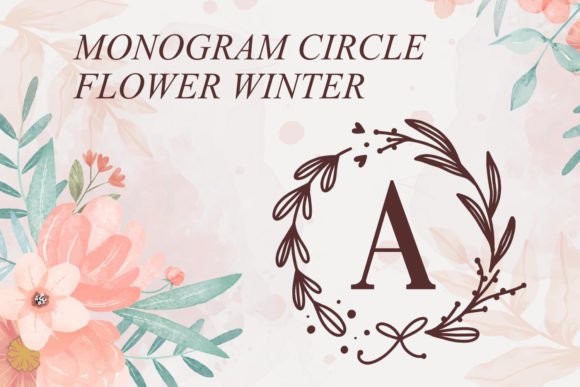
Step into a world of captivating charm where elegance and creativity intertwine. Circle Flower Winter Font, a decorative masterpiece from Typefar, is not just a font; it's an invitation to transform your designs into works of art.
Picture this: delicate flower circles gracefully encasing each letter, adding a touch of whimsical flair. The classy alphabet, with its refined lines and curves, exudes an air of sophistication that elevates your designs beyond the ordinary.
Unleash your imagination and let Circle Flower Winter Font guide you through a myriad of creative possibilities. Create personalized monograms that radiate warmth and charm. Craft eye-catching headlines that bloom with elegance. Design logos that exude a timeless appeal. The possibilities are infinite, just like the beauty of nature itself.
But Circle Flower Winter Font's allure extends far beyond its visual appeal. Its versatility knows no bounds, adapting seamlessly to a symphony of design projects. From enchanting wedding invitations to rustic signage, from whimsical greeting cards to eye-catching product packaging, Circle Flower Winter Font adds a touch of magic to every endeavor.
So, embrace the beauty of Circle Flower Winter Font and let your creativity flourish. Let your designs blossom with charm, sophistication, and a touch of the extraordinary.
Design with passion, create with purpose, and let Circle Flower Winter Font be your muse.